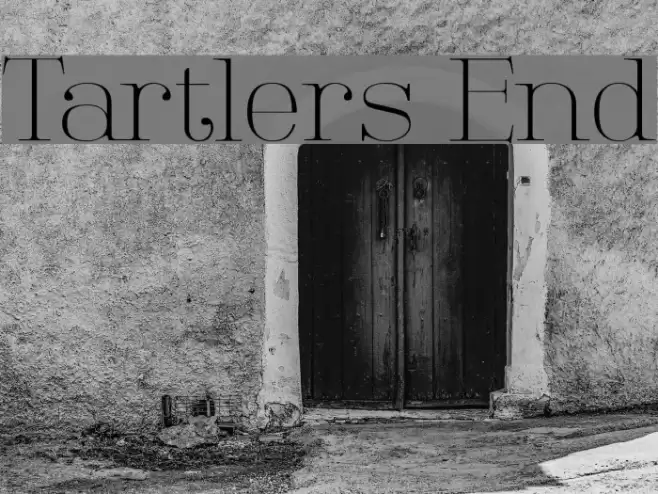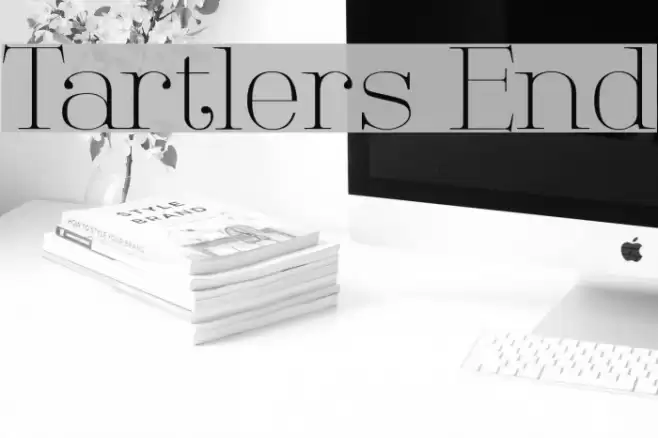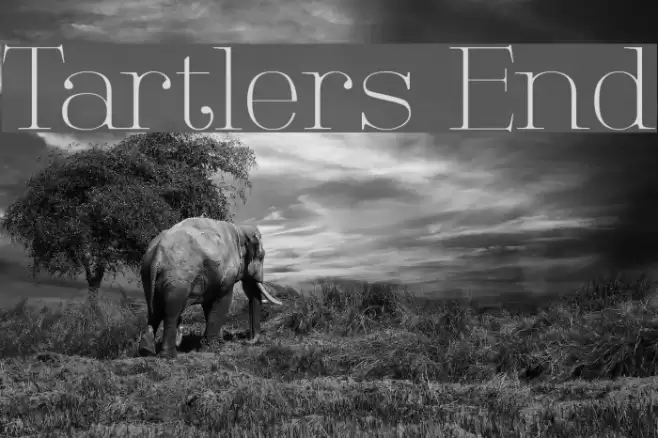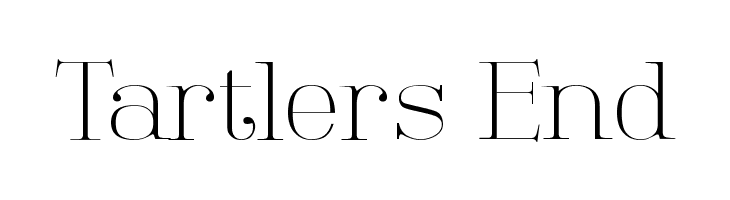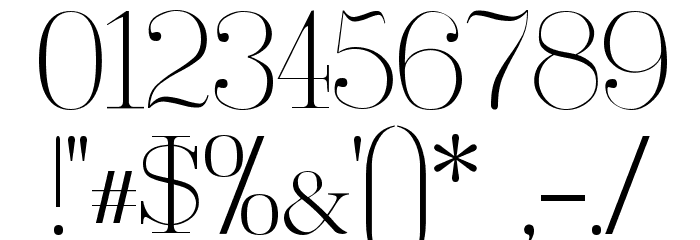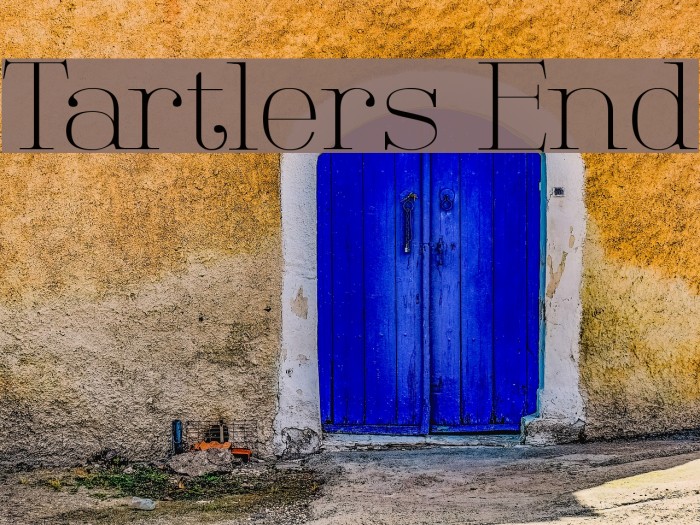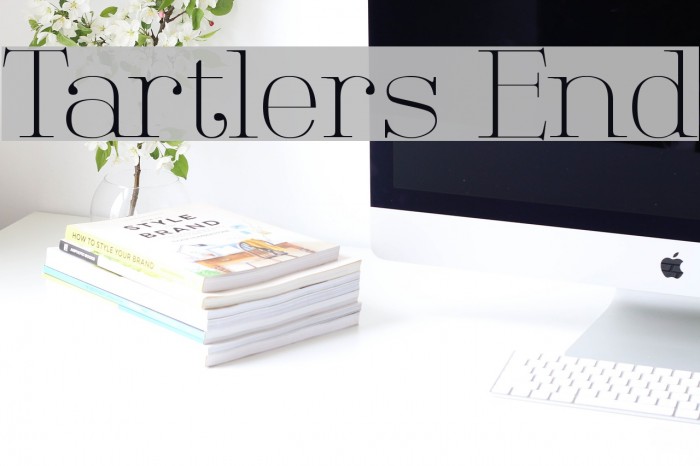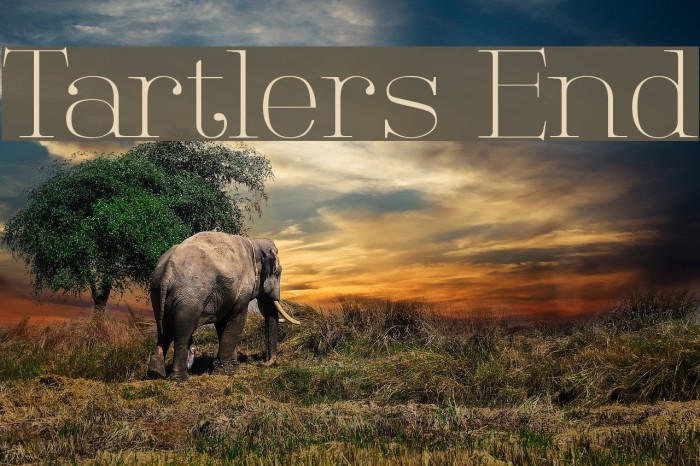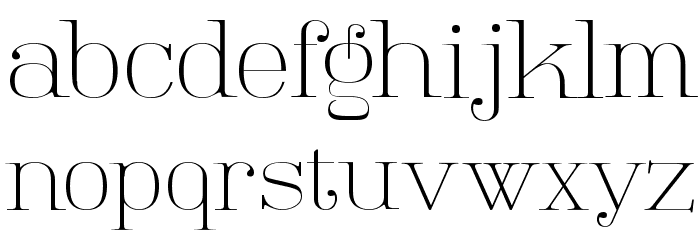
Tartlers End Font
Tartlers End Description
This font features a sophisticated and elegant design, characterized by thin, elongated serifs and a high contrast between thick and thin strokes. The uppercase letters are tall and stately, while the lowercase letters maintain a graceful flow with distinctive curves. The numerals are uniquely styled with a slight flair, adding to the overall refined appearance. Special characters are crafted with attention to detail, enhancing the font's versatility. This typeface exudes a sense of classic elegance, making it suitable for formal and high-end design projects.
An elegant serif font with high contrast and refined details from Uncategorized fonts.
- Proposed Projects: Ideal for luxury branding, editorial design, wedding invitations, and high-end product packaging.
- Overall Style: Classic
- Use Case: Headlines, Logos, Editorial design